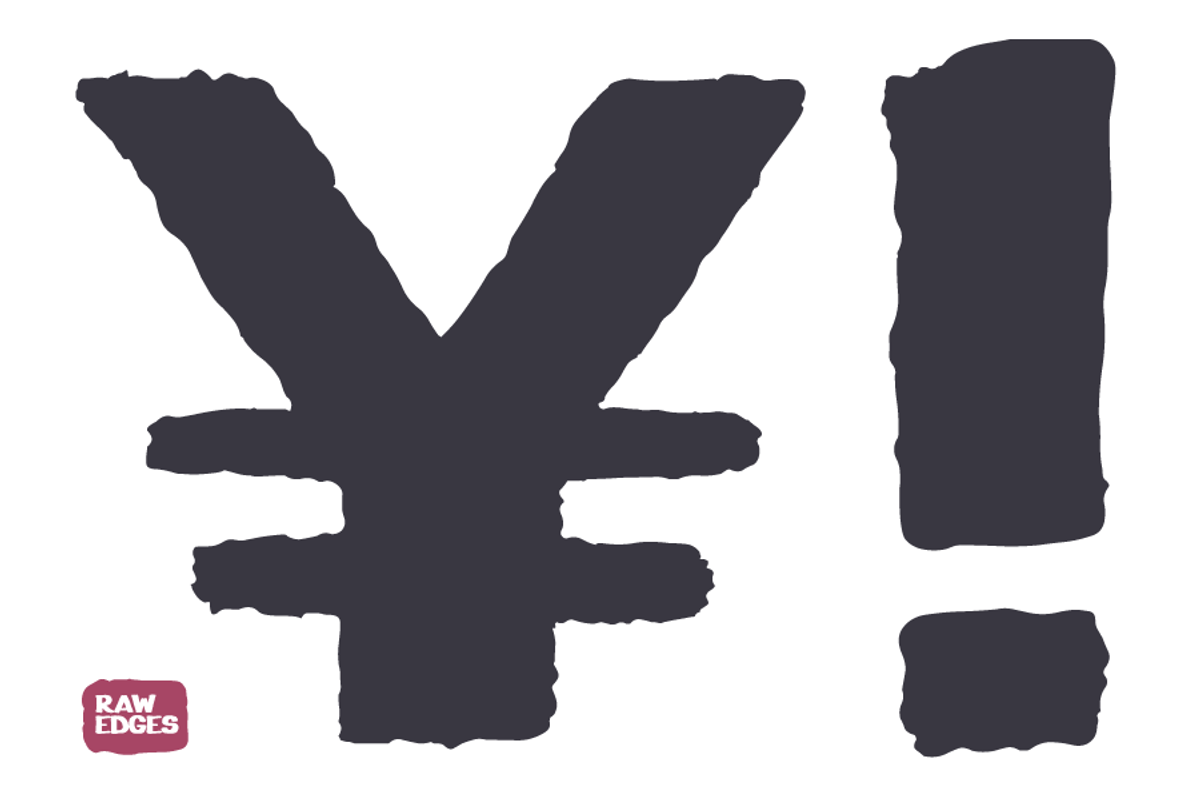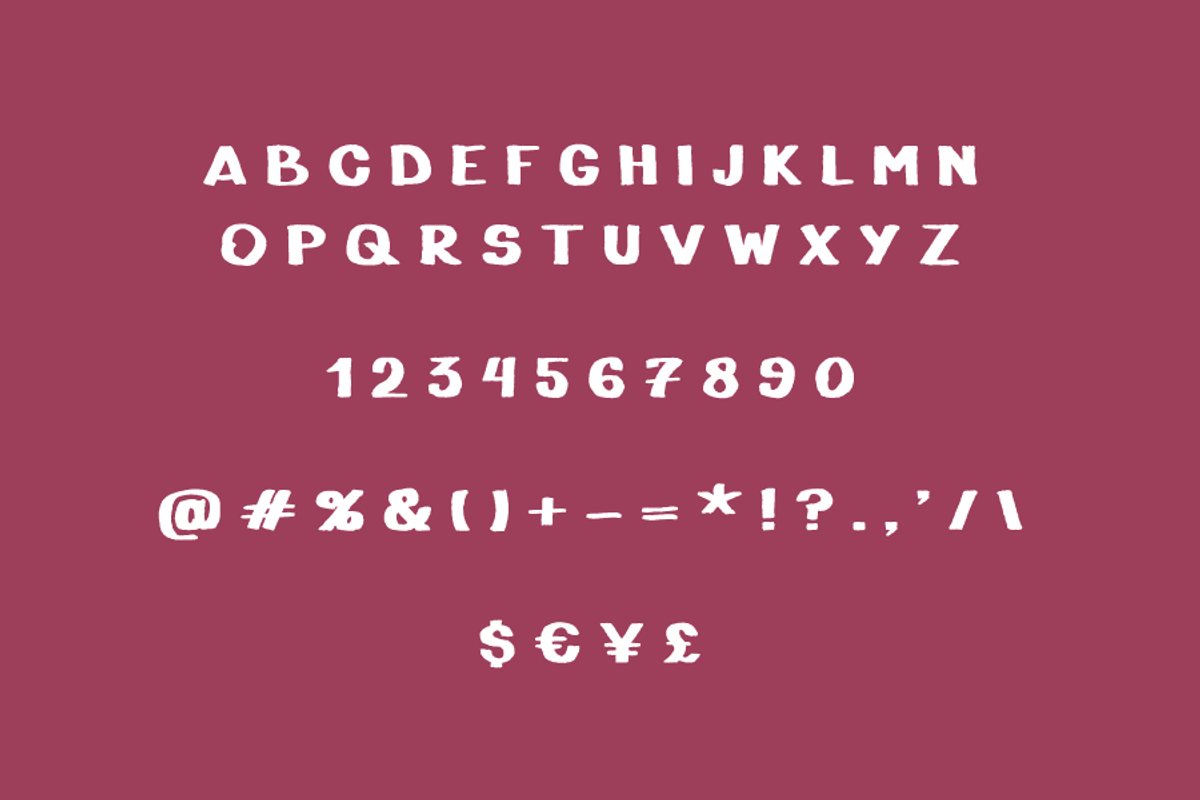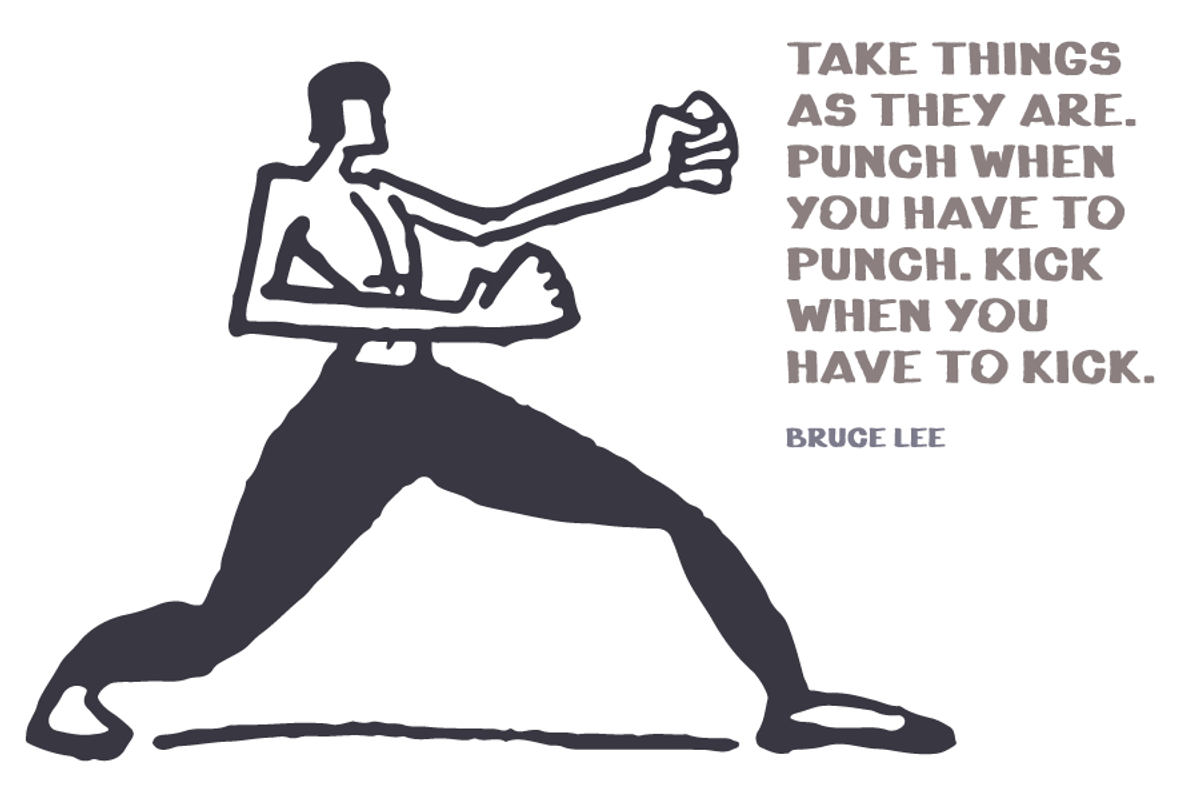
NewMarker Font
NewMarker Font by Youhhou is a font selected for branding, posters, packaging, typography.
- It contains only latin characters and ONLY UPPERCASE (lowercase is just 75%-scaled uppercase), numerals, currency symbols and some of punctu
Why NewMarker Font is worth a look
NewMarker Font by Youhhou fits naturally into Branding, posters, packaging, typography.